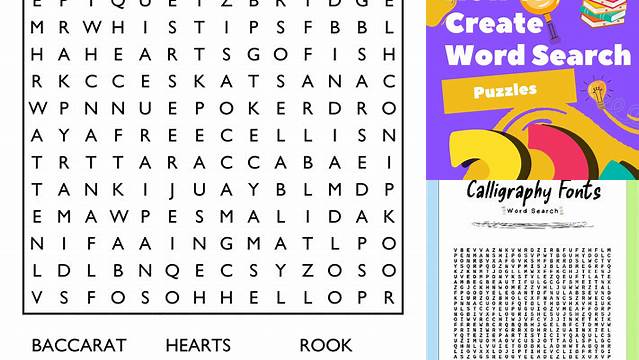
Best Fonts For Word Search Puzzles: Your Ultimate Guide
Word search puzzles, a beloved pastime for puzzle enthusiasts of all ages, offer a stimulating blend of cognitive challenge and leisurely enjoyment. While the grid structure and word lists form the core of these puzzles, the choice of font plays a surprisingly significant role in the overall experience. The right font can elevate a word search from a frustrating chore to an engaging activity, enhancing readability, visual appeal, and ultimately, the fun factor. In this comprehensive guide, we'll dive deep into the realm of typography, exploring the best fonts for word search puzzles, considering factors like clarity, style, and suitability for different audiences.
The Significance of Font Selection in Word Search Puzzles
Choosing the right font is absolutely crucial in word search puzzles. You know, like, imagine trying to find words in a jumbled mess of letters with a font that's hard to read – it's a recipe for frustration, right? That's why the font selection is a make-or-break decision. Readability is the name of the game here, folks. You want a font that's easy on the eyes, making it a breeze to scan the grid and spot those hidden words. The spacing between letters and words is also super important; it avoids the letters from mashing together and makes it easier to differentiate the letters and words, ensuring a seamless and enjoyable experience. The right font makes the puzzle accessible and enjoyable, transforming the whole experience. Let's not forget the visual appeal! Who doesn't want a puzzle that looks good? A well-chosen font can enhance the puzzle's overall look, making it more attractive and inviting. It's like the icing on the cake, adding that extra touch of aesthetic pleasure. Finally, consider the target audience. Different fonts cater to different preferences and age groups. A font that's perfect for kids might not be ideal for adults, and vice versa. Considering this, your font choices will enhance the puzzle's accessibility and appeal to its intended audience.
Furthermore, the font's design influences the brain's ability to process the letters and, subsequently, locate the words. Fonts with overly complex designs or those with similar-looking characters can slow down the search process, leading to a less enjoyable experience. On the flip side, clear, distinct fonts allow the eyes to quickly identify letters and differentiate them from each other, speeding up the search and increasing satisfaction. Font size is an additional key factor to consider, influencing the legibility and ease of reading. If the font is too small, the letters can be hard to distinguish, especially for those with visual impairments or who are looking at the puzzle on a small screen. Conversely, an excessively large font might make the puzzle seem cramped and visually overwhelming. Therefore, finding the perfect balance between font size and readability is critical for a comfortable and enjoyable word search experience.
Top Font Choices for Word Search Puzzles
When it comes to selecting the best fonts for word search puzzles, several typefaces consistently stand out for their readability, clarity, and overall suitability. Let's break down some top contenders, shall we?
Sans-Serif Fonts: The Champions of Clarity
Sans-serif fonts, known for their clean and straightforward designs, are typically at the top of the list for word search puzzles. These fonts lack the small decorative strokes (serifs) found on traditional fonts like Times New Roman, resulting in a more streamlined and easily readable appearance.
Arial: It's a classic for a reason. It offers excellent readability, with clear letterforms and consistent spacing. Arial is a widely available font, ensuring compatibility across different devices and platforms. Its simple, unadorned appearance makes it easy on the eyes, reducing eye strain during prolonged puzzle sessions. Arial is a good option for all age groups.
Helvetica: Similar to Arial, Helvetica is another sans-serif powerhouse. Its clear and neutral design is excellent for word search puzzles. Helvetica is often favored for its modern look and high legibility. It's a solid choice for both printed and digital word search puzzles, offering a clean and professional appearance.
Roboto: This modern sans-serif font is a great alternative. Roboto is specifically designed for screen use, making it highly readable on digital devices. Its open letterforms and balanced proportions contribute to its excellent legibility. If you're creating word search puzzles for online platforms or mobile apps, Roboto is a great choice. It's optimized for various screen sizes and resolutions, guaranteeing a clear and comfortable viewing experience.
Serif Fonts: A Touch of Elegance with Caution
Serif fonts, which include small decorative strokes at the end of letter strokes, can be used in word search puzzles, but with some caution. While they may have a more elegant look, they can sometimes compromise readability, especially at smaller sizes.
- Georgia: Georgia is a serif font specifically designed for on-screen readability. Its robust letterforms and relatively large x-height (the height of the lowercase